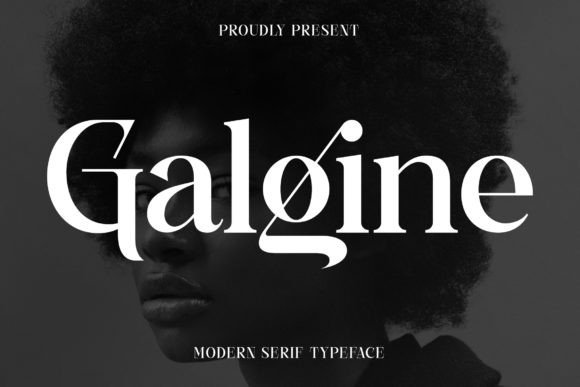
Journey into the realm of typography with Galgine Font, a captivating serif font that exudes elegance and sophistication. This modern masterpiece, crafted by Storytype Studio, is an ode to timeless beauty and distinctive style, leaving an unforgettable mark on any creative project.
Unleash the power of expression with Galgine Font, a font that speaks volumes. Its graceful curves and striking serifs command attention, while its unwavering consistency ensures a harmonious flow throughout your designs. Experience the joy of crafting elegant logos that exude luxury and sophistication. Let Galgine Font elevate your book or movie titles, transforming them into cinematic masterpieces.
Embark on a fashion adventure with Galgine Font, a font that will make your brand shine. Create clothing designs that radiate style and exclusivity, leaving a lasting impression on your customers. Unleash your creativity with magazine layouts that capture the essence of modern elegance. Let Galgine Font's timeless charm add a touch of sophistication to your quotes, transforming them into works of art.
With Galgine Font, the possibilities are endless. Its versatility knows no bounds, effortlessly adapting to a myriad of projects. Let your imagination run wild as you craft stunning wedding invitations that exude romance and grace. Create social media posts that captivate your audience with their visual allure. Unlock the potential of your packaging designs, adding an air of exclusivity to your products.
Galgine Font is not just a collection of letters; it's an artistic expression that ignites the senses and stirs the soul. Download Galgine Font today and embark on a creative journey like no other. Let your designs bloom with beauty, sophistication, and a dash of modern flair. Experience the transformative power of typography with Galgine Font, and see your creative visions come alive.